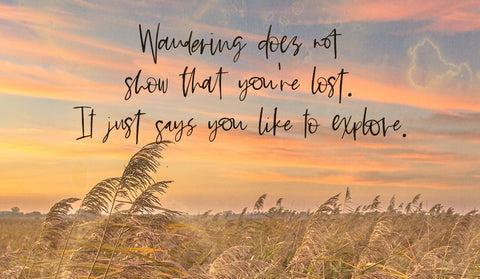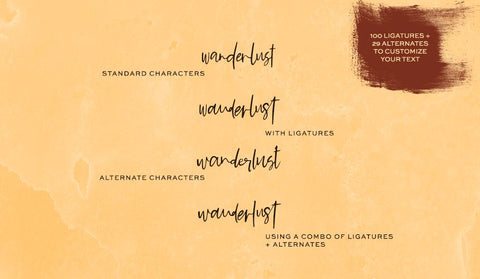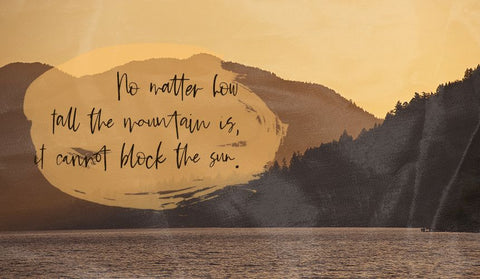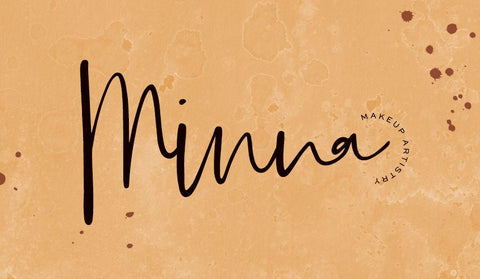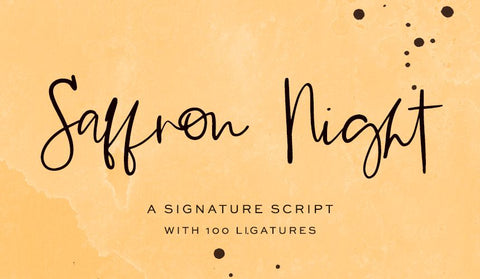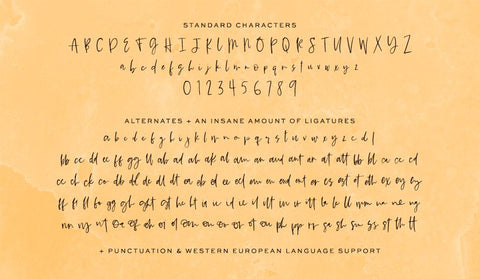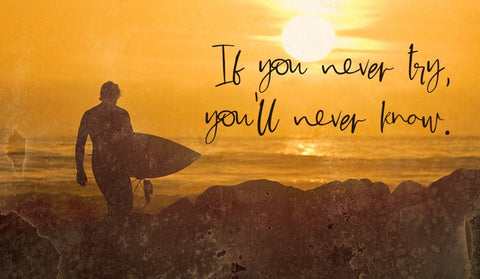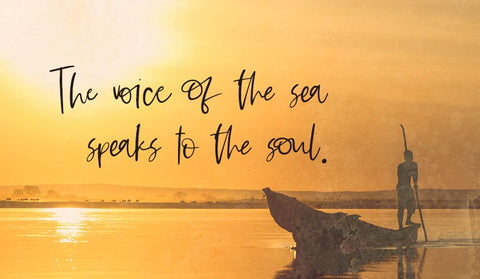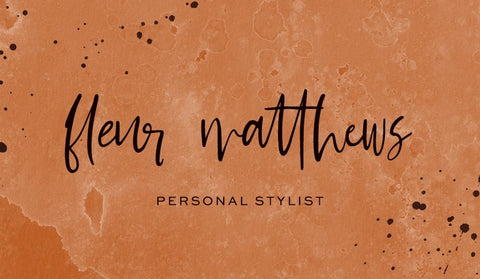
Saffron Night Signature Script Font
Meet Saffron Night Signature Script, a handwritten font that mimics the look & feel of random scrawly notes and journal pages.  A bit feminine in nature, Saffron Night is an excellent fit for a luxury project that needs an edgy and moody element. Saffron Night Signature Script includes a set of lowercase alternates so that you can customize your text just a bit more, and an astounding 100 ligatures that make this font super powerful and unique.
Saffron Night Signature Script is an excellent fit for:
- logo design + branding projects
- print design, like magazines & flyers that need a bold statement font
- header elements + websites that draw attention
- quote graphics for social media
- projects in the fashion industry, high end creatives, and luxury product lines
Saffron Night includes:
- full upper + lowercase characters
- numbers + punctuation
- Western European Language Support
- 29 alternates
- 100 ligatures